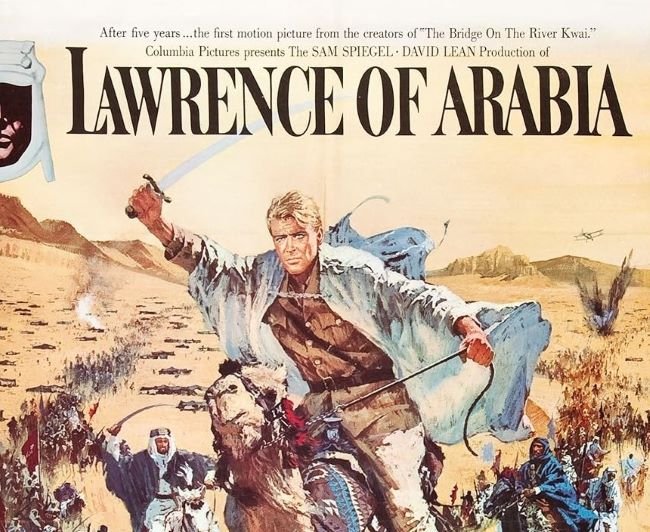
Lawrence of Arabia font sets the scale before David Lean’s cameras have even rolled — bold, regal serif lettering that carries the weight of empire, desert, and myth all at once, promising the viewer that what follows will be genuinely enormous. The 1962 film’s title typography draws on the distinguished Old Style and Trajan-adjacent roman traditions: authoritative letterforms with sharp serifs, classical proportions, and the unhurried confidence of an inscription carved into stone by someone who expected it to last. Two alternatives reconstruct that epic serif gravitas with different textures: Alternative 1 and Alternative 2, both working in the classical roman tradition.